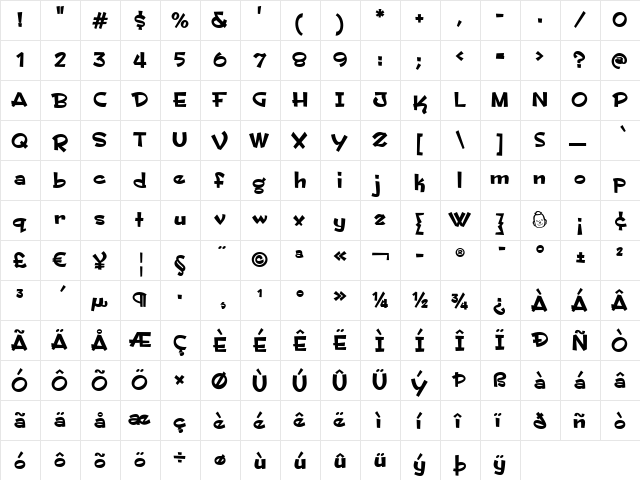
PosterboyITC Medium Font Preview
PosterboyITC Medium
PosterboyITC Medium Font Details
Design Context for PosterboyITC Typeface
PosterboyITC is a composed and adaptable typeface that performs quietly and consistently across a wide range of design contexts.
Pro Tip: Pair PosterboyITC with a font of contrasting weight or personality to build a more expressive typographic hierarchy.